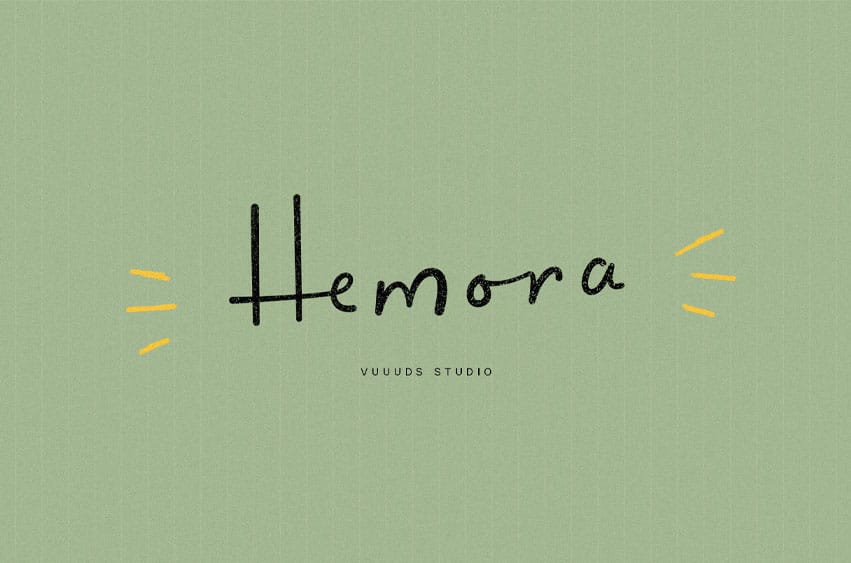
Hemora Font is a casual, fun, handwritten font; every single letter has been uniquely crafted. This font includes beautiful alternate glyphs. You can access the alternate glyph via Font Book (Mac user) or Windows Character Map (Windows user).
Multi-language support: ÀÁÂÃÄÅÆÇÈÉÊËÌÍÎÏÐÑÒÓÔÕÖØÙÚÛÜŸÝ àáâãäåæçèéêëìíîïðñòóôõöøùúûüýÿ ߀£¥©®™